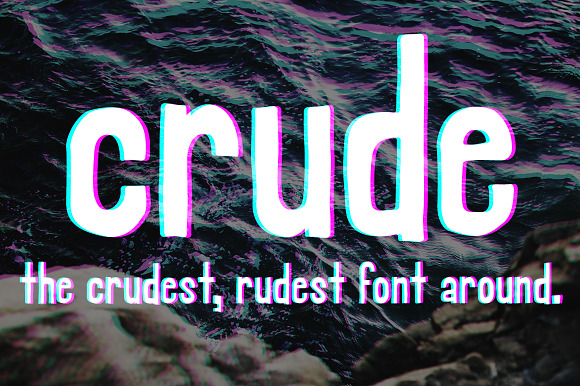
Crude - A rough hand font
Crude is the crudest, rudest font around!
Crude is my first ever attempt at a typeface, with many perfect imperfections this font stays true to its name giving you the capability to add an organic, rough-around-the-edges, hand rendered feel to any of your designs.